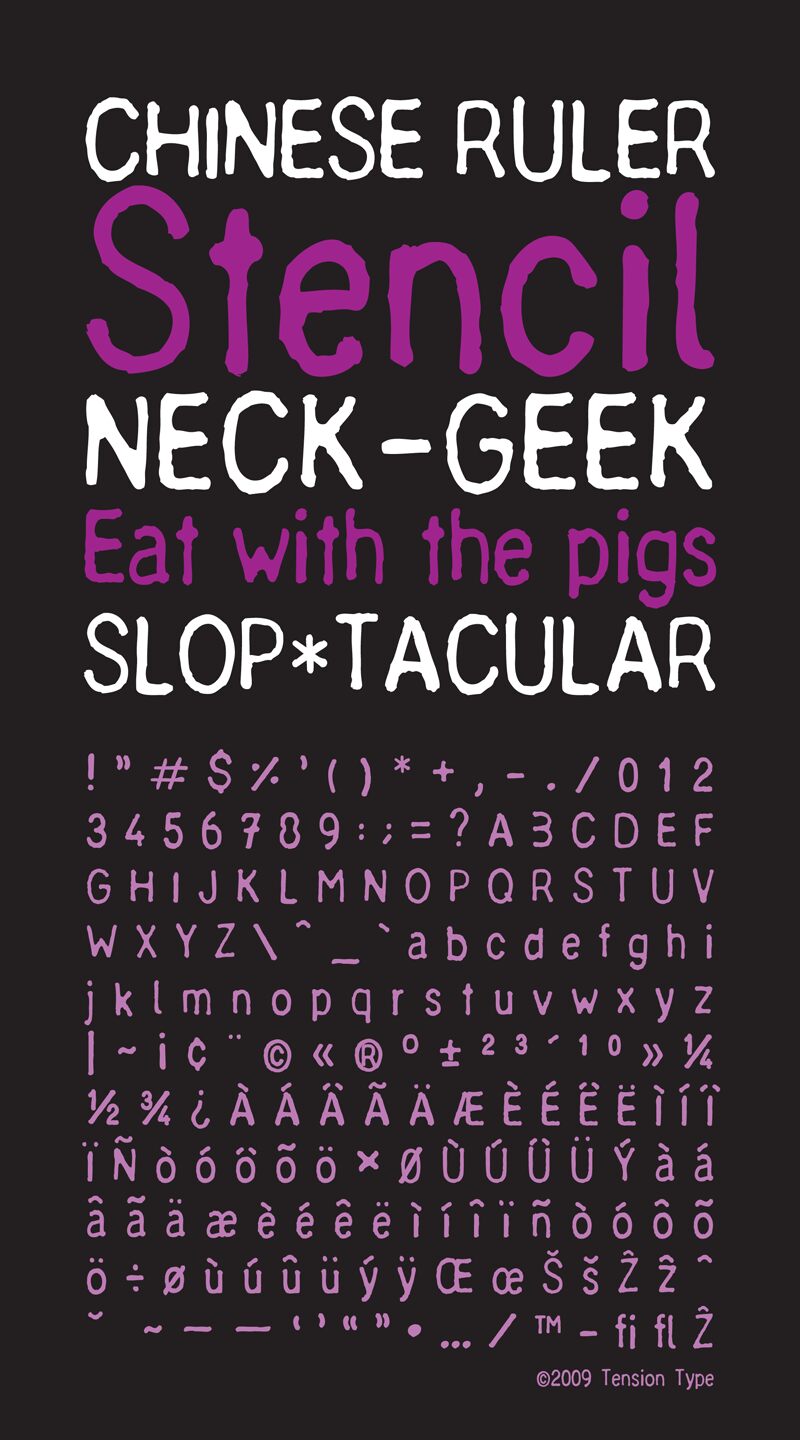
Chinese Ruler by Michael Tension is a free hand-drawn display font with uneven strokes and a blunt, inked finish. Its letters have loose curves, irregular joins, and small variations in width that make the writing feel made by hand. The forms are sturdy but never mechanical.
Packaging is a particularly good medium for this lettering, especially on tea labels, snack wrappers, and playful restaurant menus. The brushy edges can echo simple food illustrations or stamped motifs, turning the words into part of the package's artwork rather than neutral labeling alone.